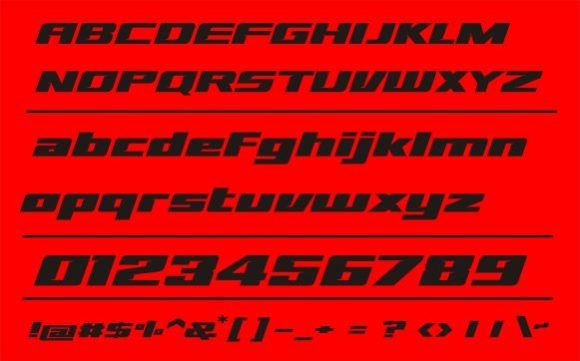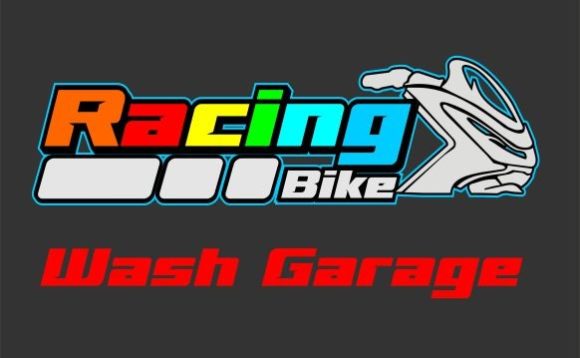
Introduction to Sd Prostreet Font
Do you remember that moment when you’re brainstorming a creative project and the perfect font just clicks into place? For designers, it’s that instant when all the pieces fall into line, and the design starts to come alive. That’s what happens when you discover the Sd Prostreet Font – a modern and techno-looking display font that screams high quality and sophistication.
With its sleek, high-tech aesthetic, Sd Prostreet Font is the perfect choice for any sport or racing-themed project. Whether you’re designing a logo, poster, game, or product, this font is sure to give your design a boost. And the best part? It’s a free download, making it an invaluable design resource for creatives on a budget.
Key Features of Sd Prostreet Font
- High-quality font design for creative projects, ideal for use in graphic design, digital art, and typography.
- Designed to be highly legible, with clear and crisp letterforms, making it perfect for use in a variety of creative contexts.
Honest Review: Sd Prostreet Font
I recently came across the Sd Prostreet Font, and I was immediately drawn to its sleek, modern design. As a designer, I’m always on the lookout for high-quality fonts that can elevate my creative project. In this review, I’ll share my honest thoughts on this font.
- Unique and modern design: The Sd Prostreet Font has a distinctive look that sets it apart from other fonts. Its clean lines and minimalist aesthetic make it perfect for modern creative projects.
- High-quality rendering: The font renders beautifully, even at larger sizes, which is a testament to its high-quality design.
- Limited language support: Unfortunately, the Sd Prostreet Font only supports a limited number of languages, which may be a drawback for designers who need to work with multiple languages.
- Transparent background: The font’s transparent background can be a bit tricky to work with, especially if you’re not familiar with how to use it.
Overall, the Sd Prostreet Font is a great addition to any designer’s toolkit. Its unique design and high-quality rendering make it perfect for modern creative projects. However, its limited language support and transparent background may require a bit more effort to work with.
Tips for Getting the Most Out of Sd Prostreet Font
To get the most out of the Sd Prostreet Font, use it in conjunction with other design elements that complement its style. Experiment with different font sizes, colors, and styles to create a unique look that suits your creative project. The font’s transparent background makes it ideal for use with images and graphics, allowing you to create a seamless design.
The Sd Prostreet Font is a versatile design resource that can be used in a variety of creative projects, including logos, brochures, business cards, and social media graphics. Its high quality and transparent background make it an ideal choice for designers who want to create visually appealing and professional-looking designs.
The Sd Prostreet Font is designed to be highly legible and versatile, making it suitable for a wide range of resolutions and display sizes. However, for optimal results, we recommend using the font at a resolution of 72 dpi or higher, and on displays with a transparent background to ensure the best possible readability and visual impact.